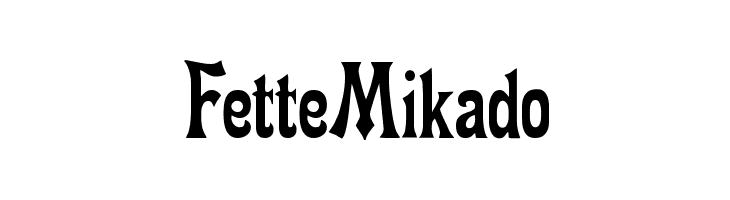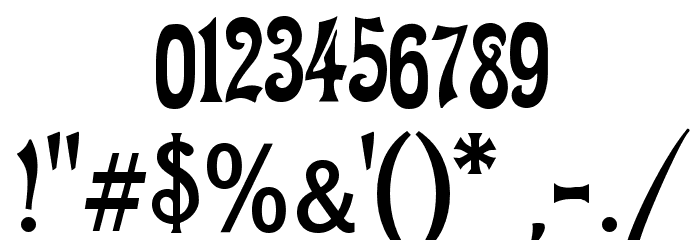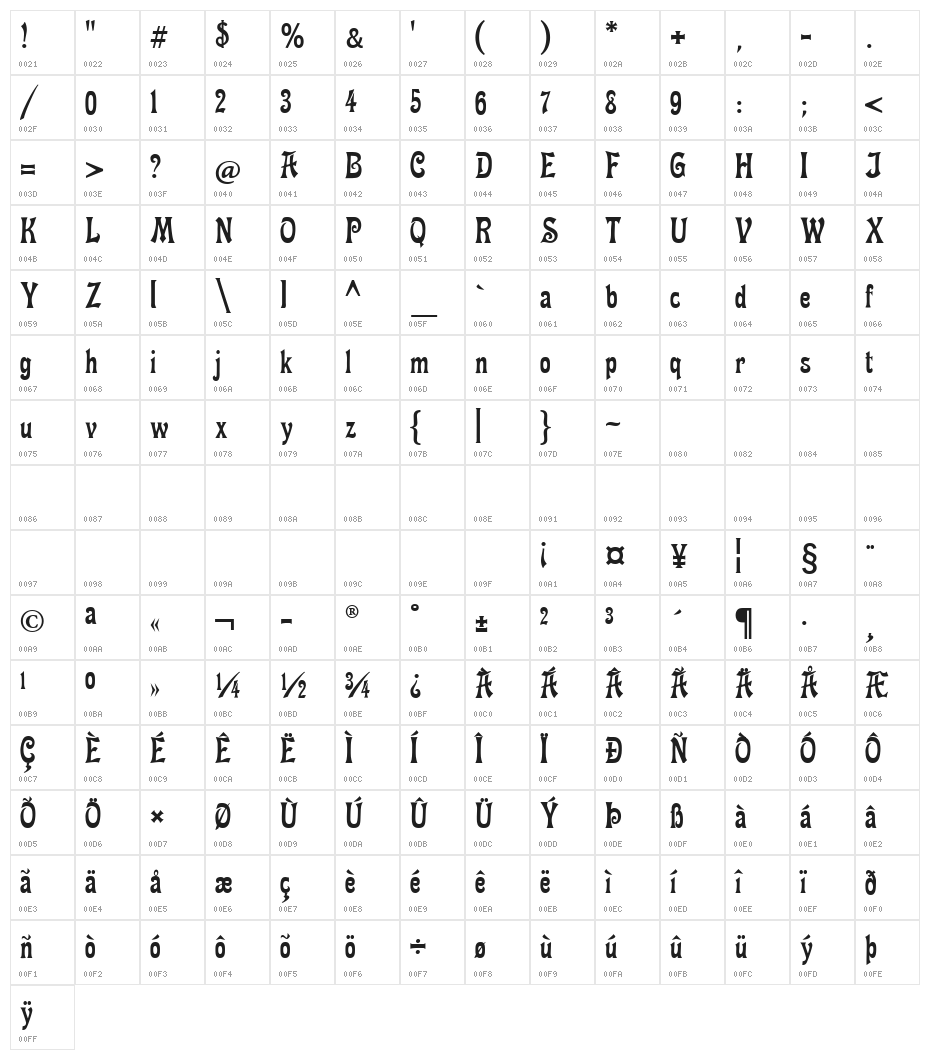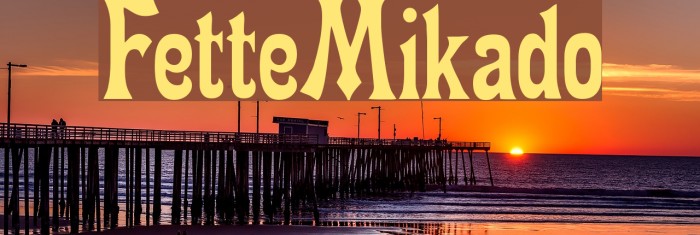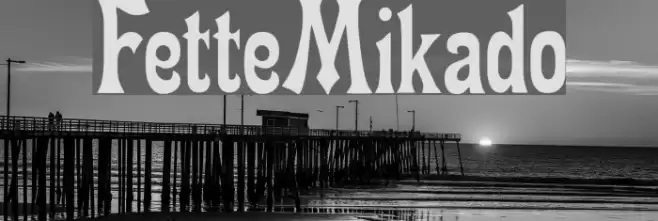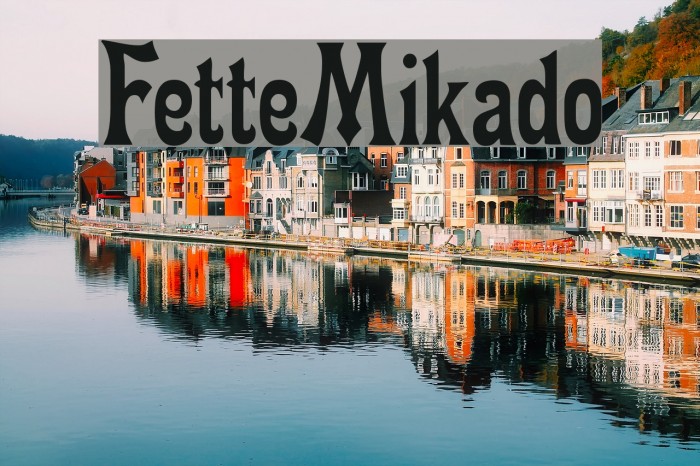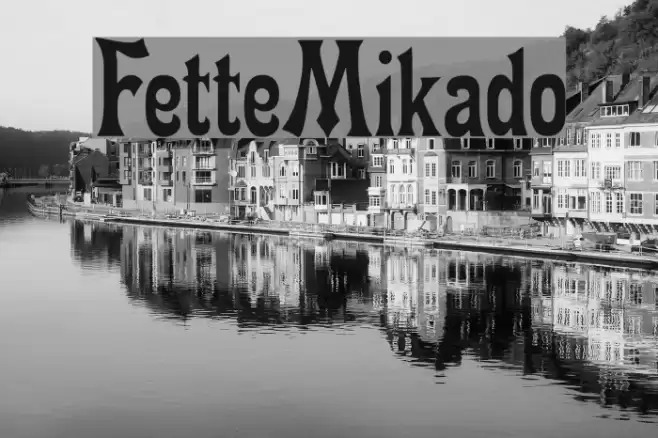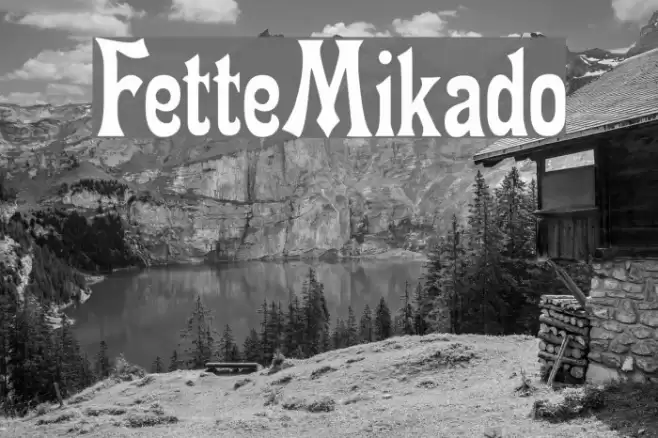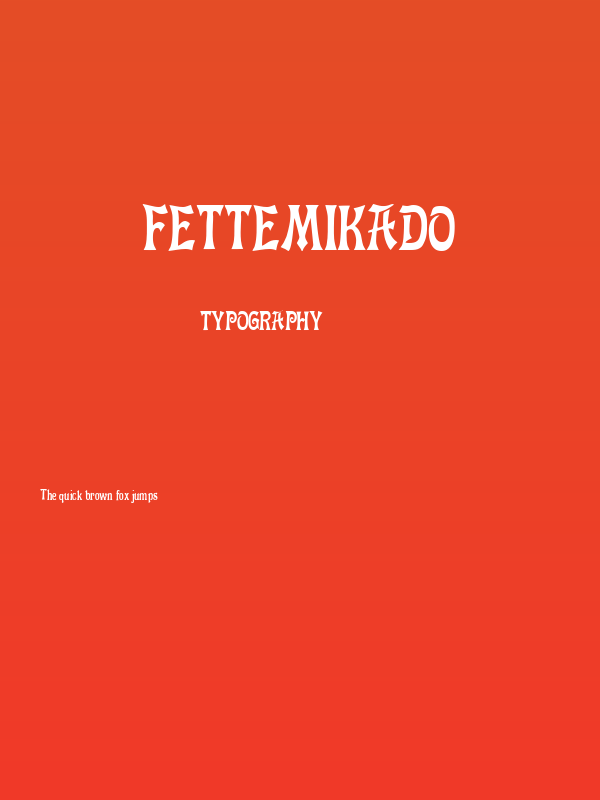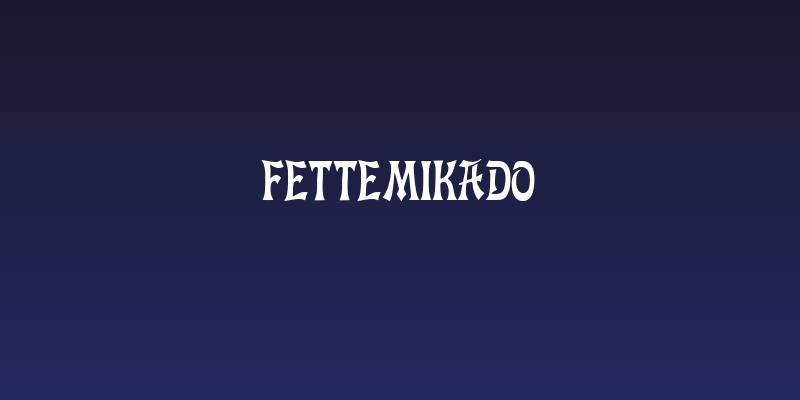
FetteMikado Font
FetteMikado Description
This font features a bold and dynamic style with a strong presence. The characters exhibit a unique blend of sharp edges and smooth curves, creating a striking visual impact. The uppercase letters are particularly distinctive, with exaggerated serifs and a slightly condensed form that adds to the font's dramatic flair. The lowercase letters maintain a consistent style, offering a harmonious balance between readability and artistic expression. The numerals are bold and clear, ensuring they stand out in any design. Special characters are crafted with the same attention to detail, making them suitable for a variety of creative applications.